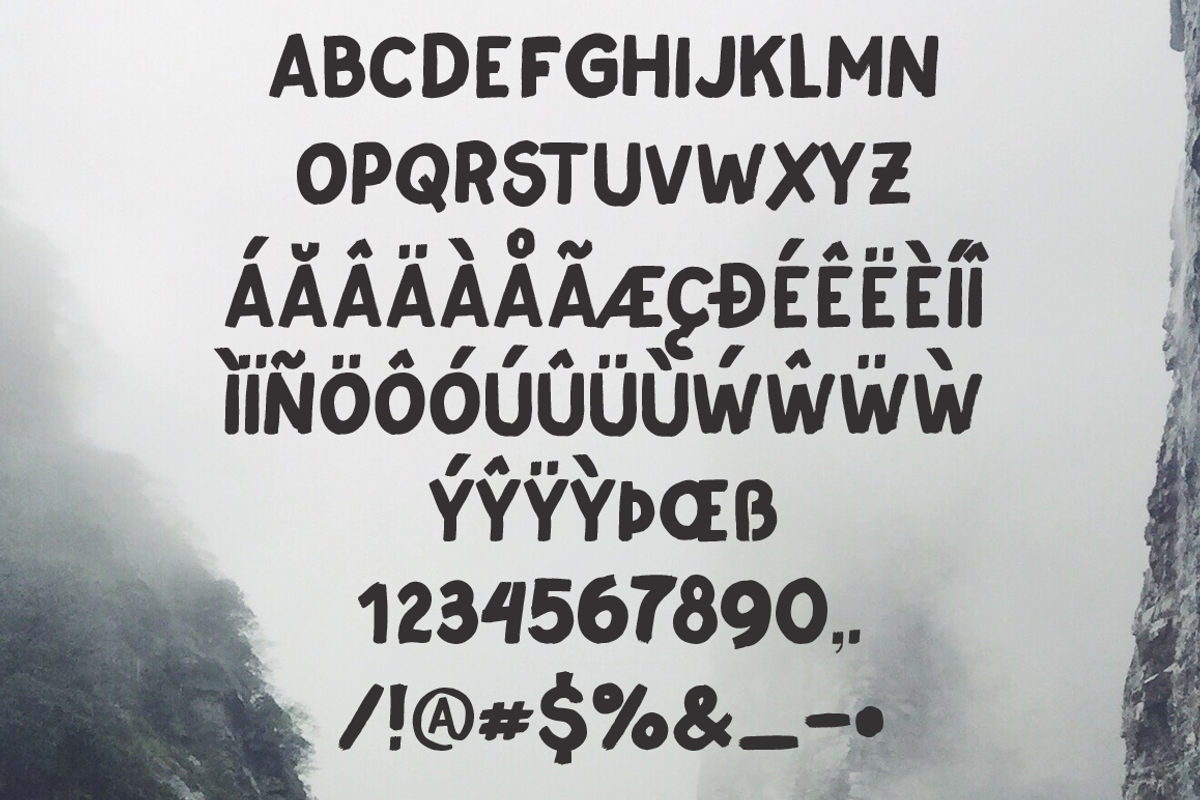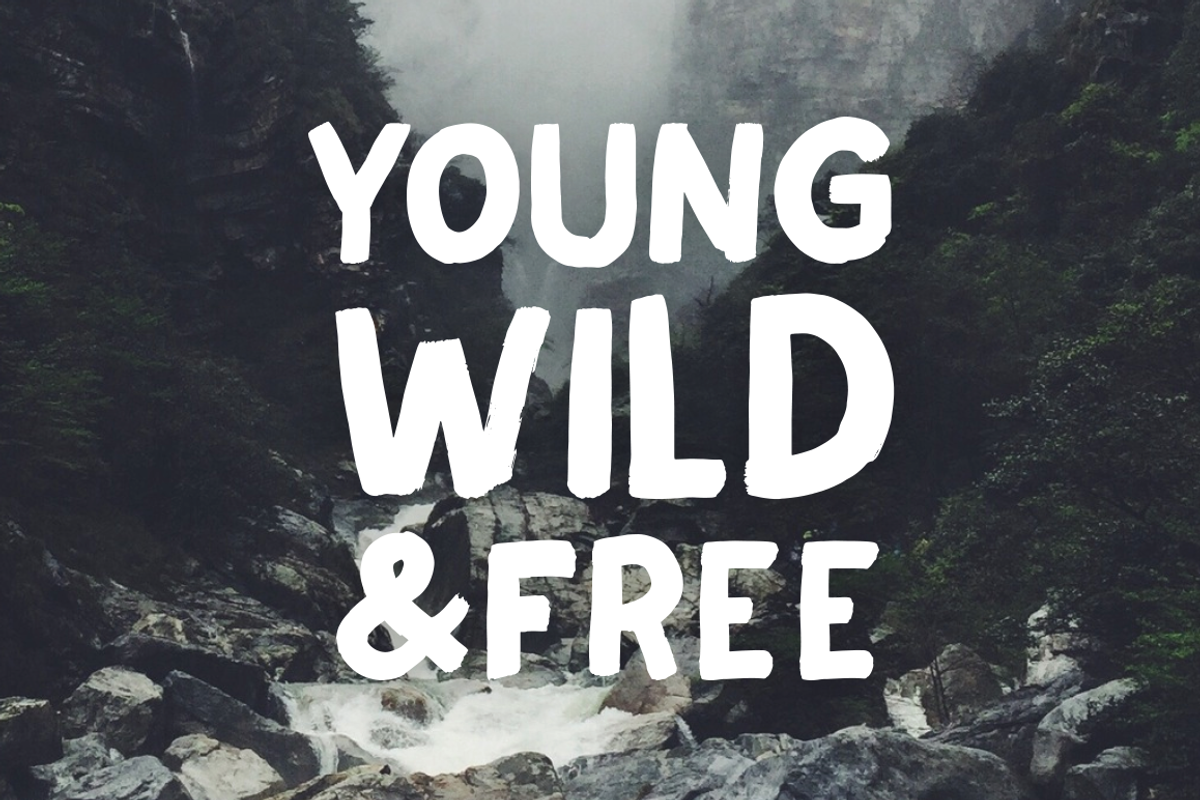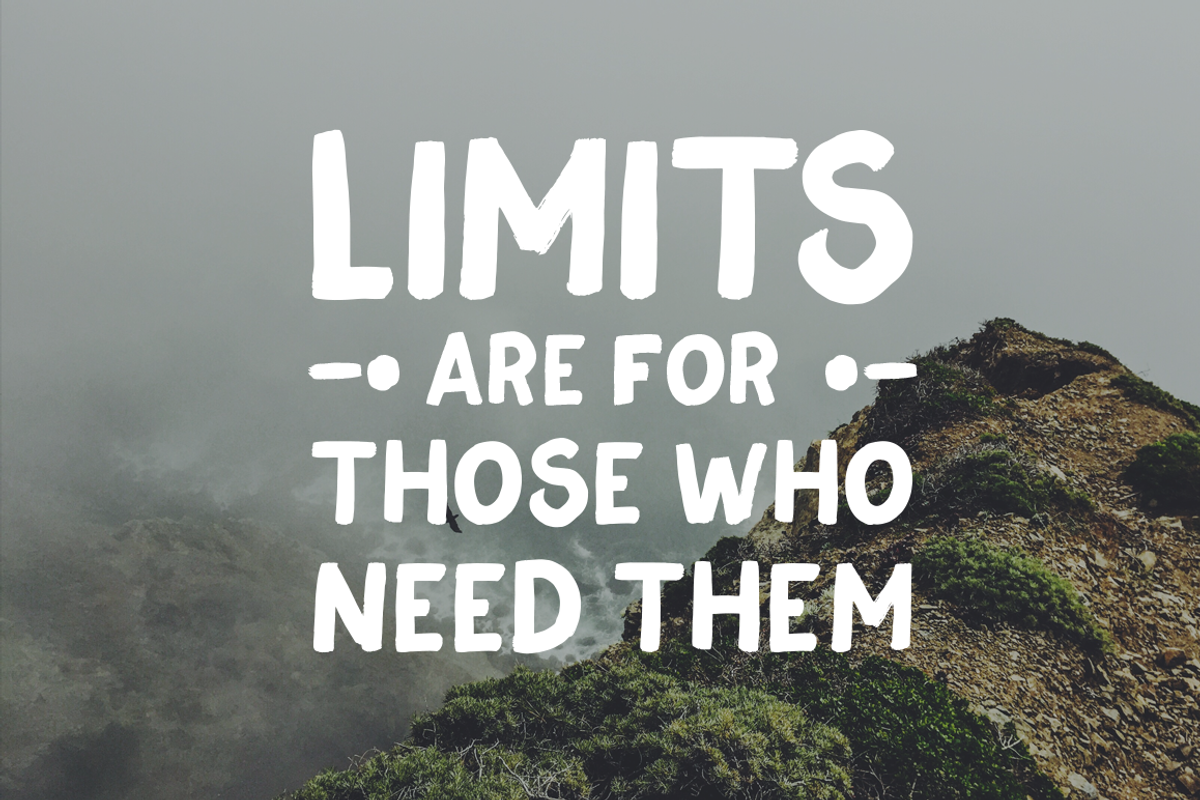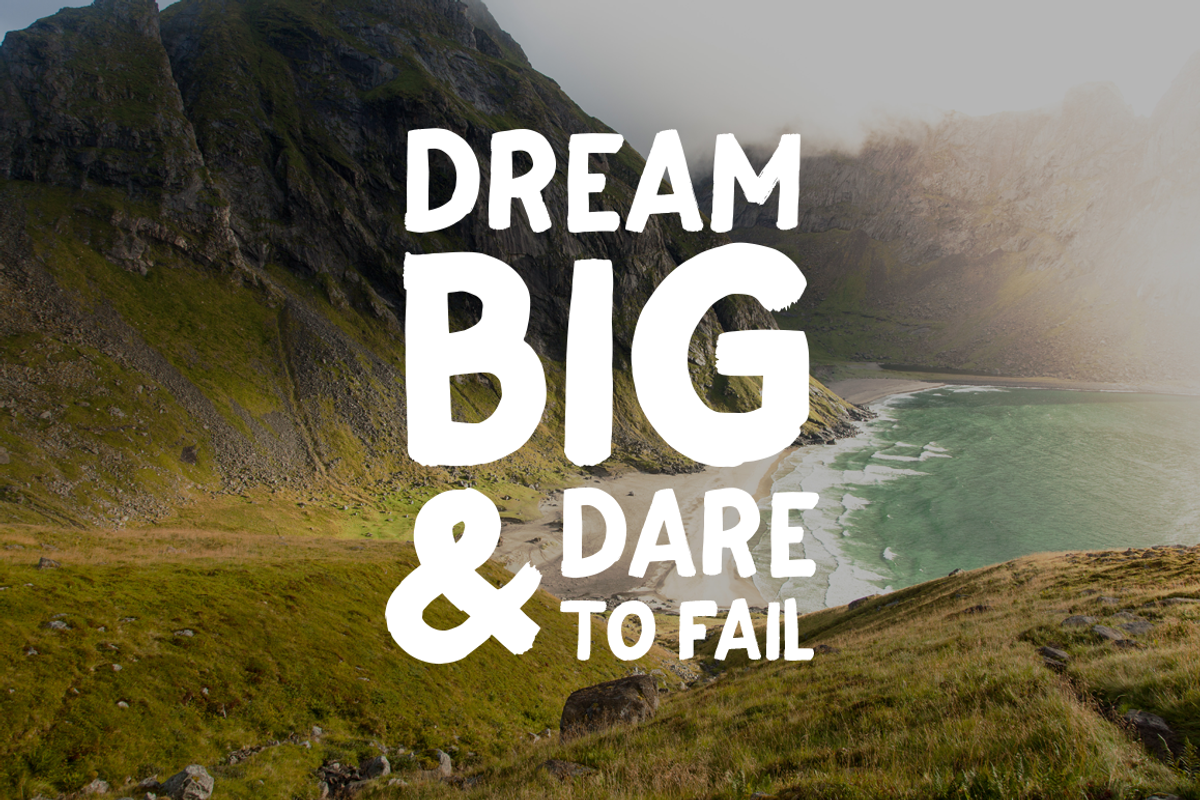
Wild Youth Typeface
Wild Youth Typeface by Ilham Herry is a font selected for branding, posters, packaging, typography.
- Wild Youth Regular
Why Wild Youth Typeface is worth a look
Wild Youth Typeface by Ilham Herry fits naturally into Branding, posters, packaging, typography.